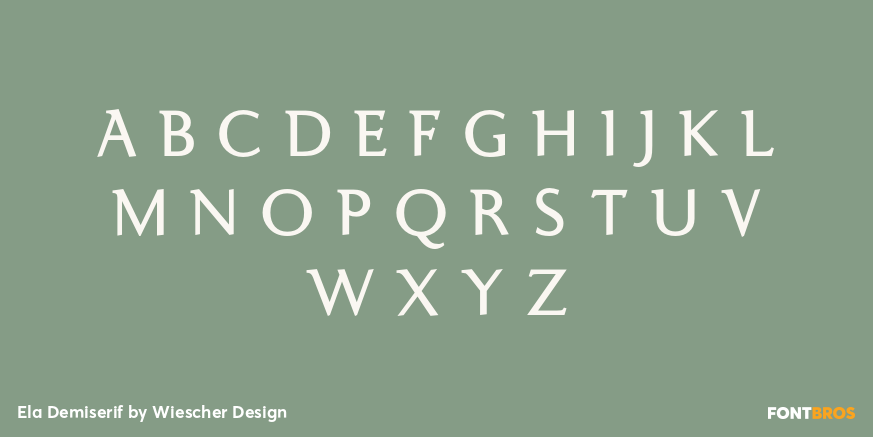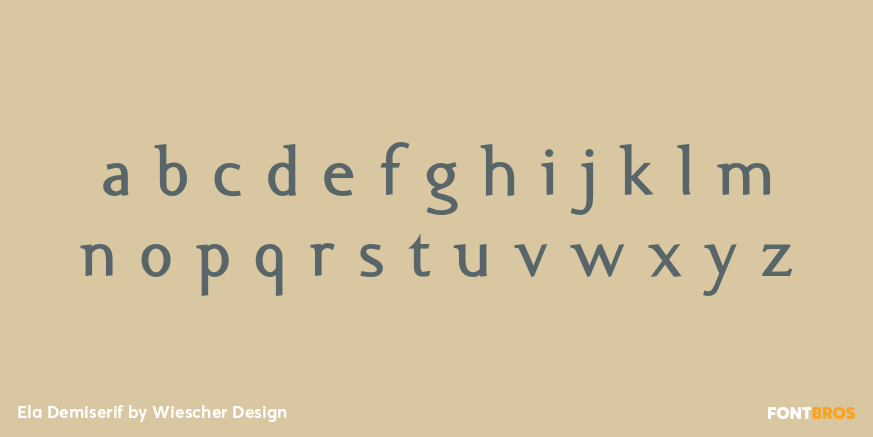
Ela Demiserif
Font Family by Wiescher Design
Ela - the typeface - is suitable for magazines, newspapers, posters, advertiments, books, text, documentation/business reports, business correspondence, multimedia, and corporate design.
Because lately this typeface became very popular I decided to extend it to eight weights and I added italic and smallcaps versions to it.
So now Ela is a full fledged typeface.